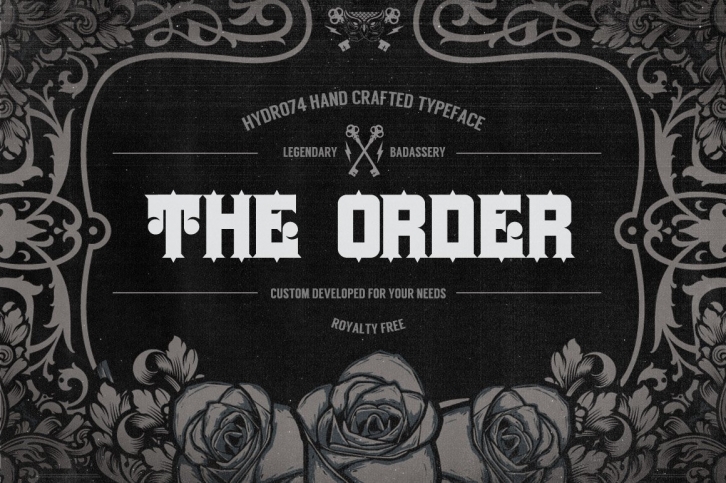
This is a customized developed font created by Hydro74. The style and structure is mean to be more of a tool than a core typeface for you to be able to customize and create something unique. All files are as is since these typefaces are made out of pride and passion for the desire and need to create.